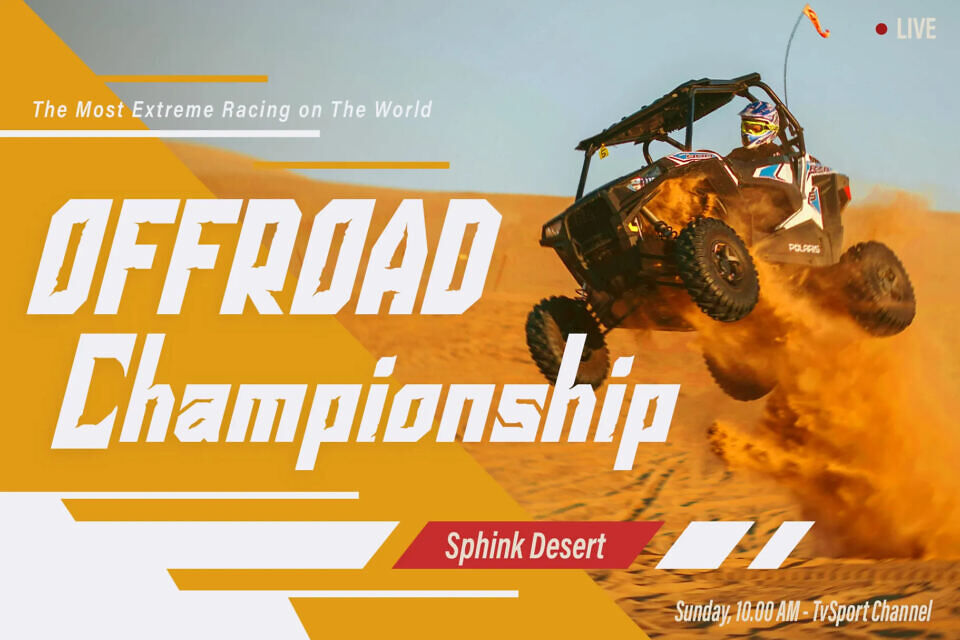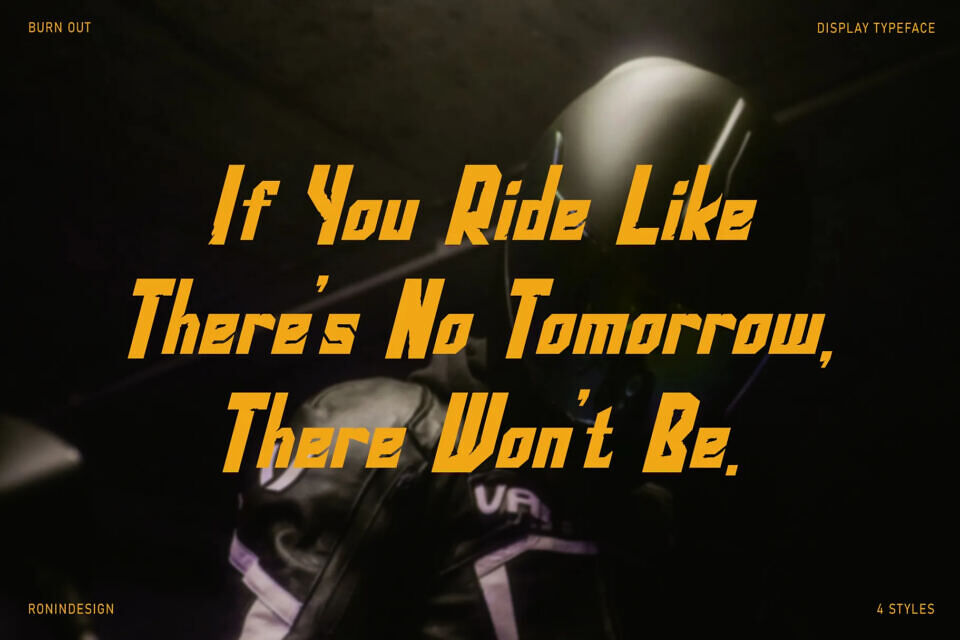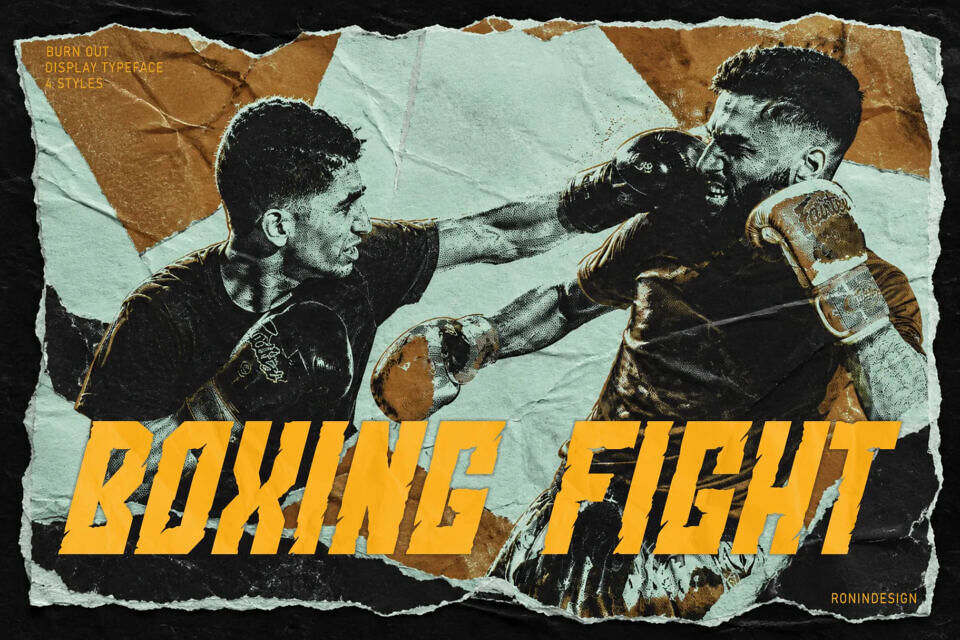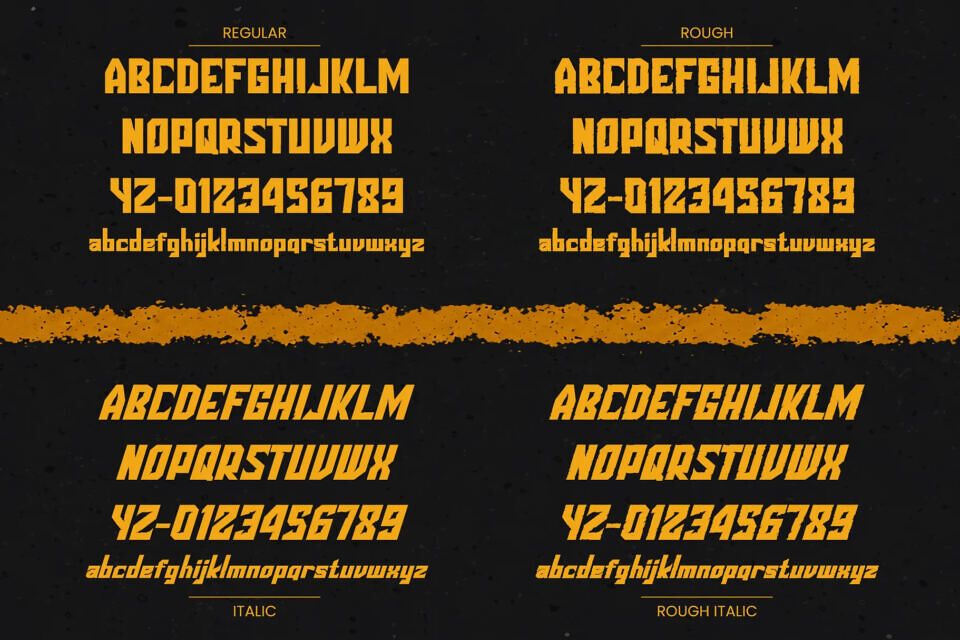
Burn Out is a bold display typeface built to capture power and raw energy. Featuring sharp forms, aggressive proportions, and a rugged texture, Burn Out deivers a high-impact presence that instantly commands attention.
Designed for projects that demand a fast and fearless attitude, Burn Out is perfect for racing brands, automotive graphics, esports identities, gaming titles, action posters, sports apparel, merchandise, and bold headline designs. The full family includes four styles — Regular, Italic, Rough, and Rough Italic — giving you the flexibility to switch between clean performance aesthetics and a more aggressive look.